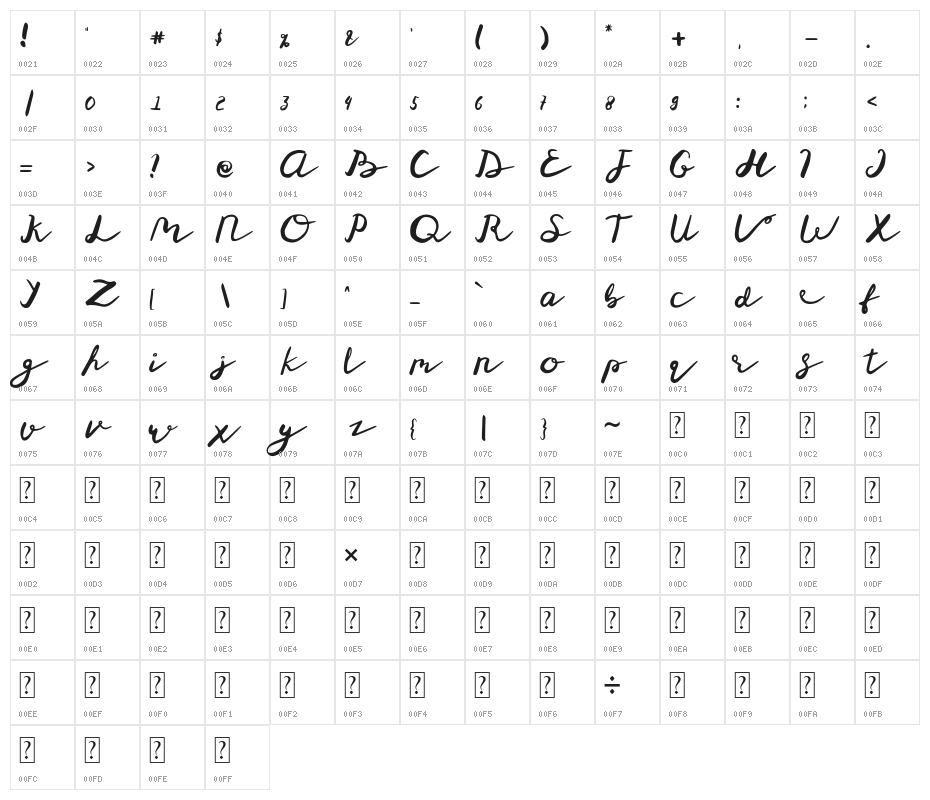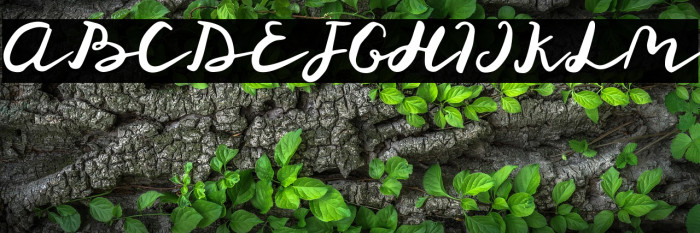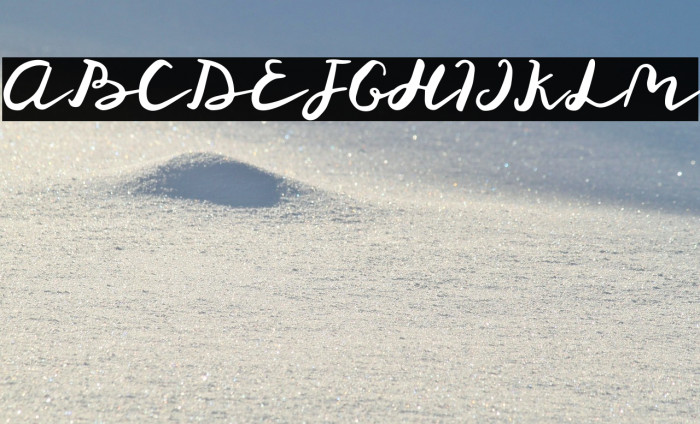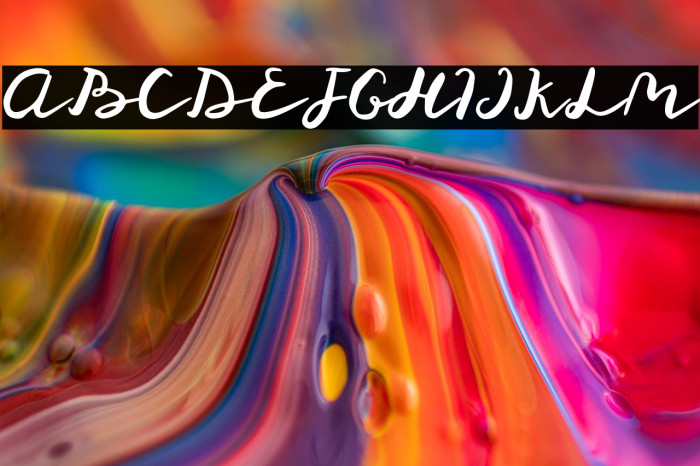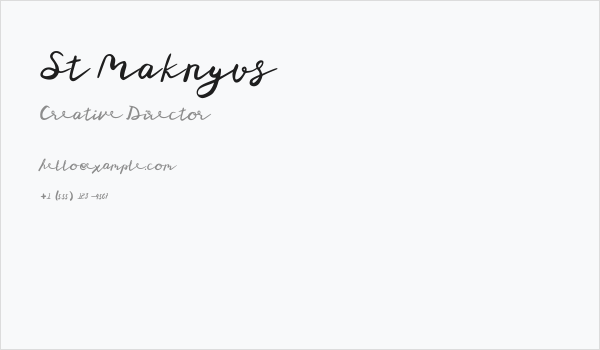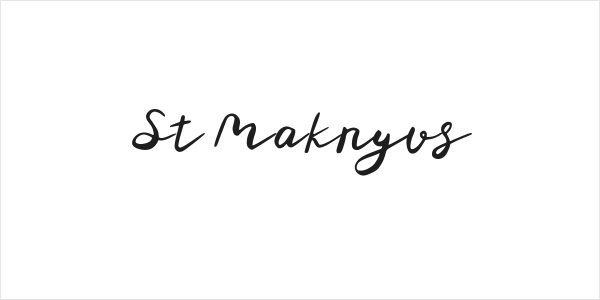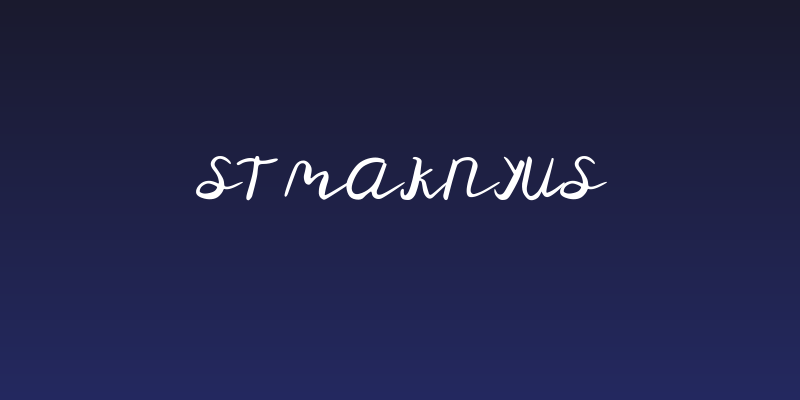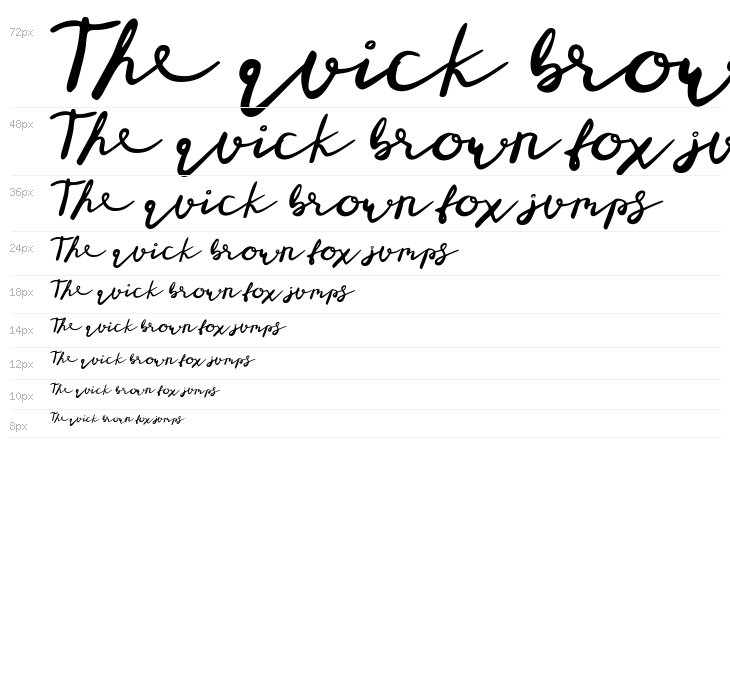
St Maknyus Font
St Maknyus Description
A flowing, cursive script font with a handwritten style, featuring smooth, connected letters and a casual, artistic appearance.
| Overall Style | Casual, Artistic |
| Use Case | Logos, Invitations, Greeting cards |
| Proposed Projects | Invitations, greeting cards, personal branding. |